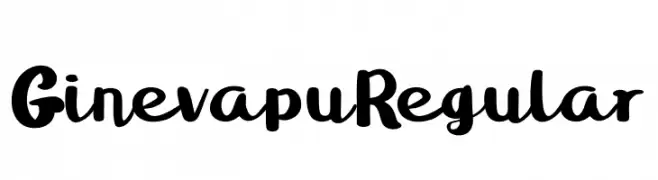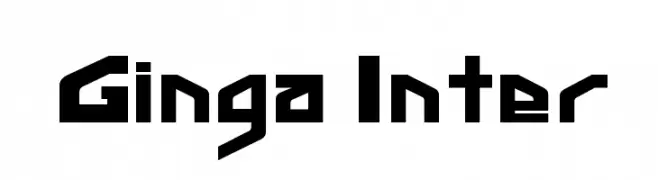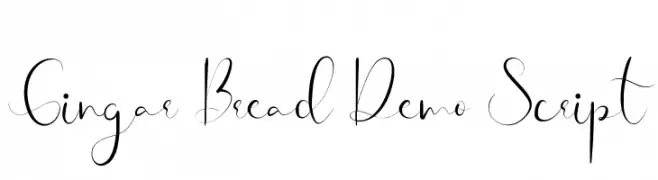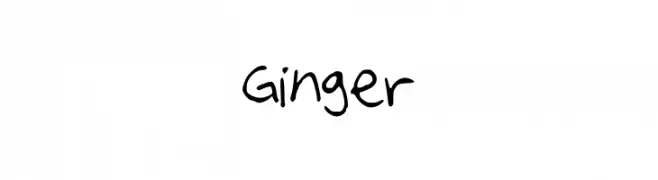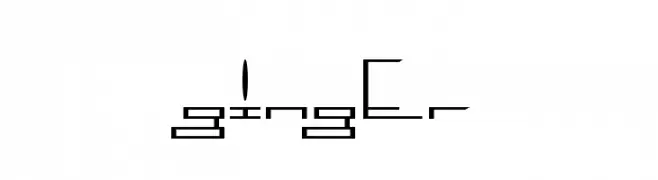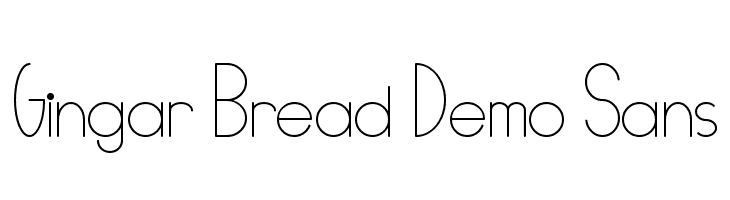
A playful and dynamic script font with smooth, flowing lines.
A playful, handwritten font with smooth curves and a casual style.
A bold, playful font with a handwritten style and rounded characters.
A bold, geometric font with a futuristic and angular design.
An ornate script font with grunge splatter effects and elaborate flourishes.
An ornate and artistic font with swirling flourishes and grunge effects.
A modern, geometric sans-serif font with tall, slender characters and consistent stroke width.
A graceful and flowing script font with elegant, interconnected characters.
A playful, handwritten font with smooth, flowing lines and a casual feel.